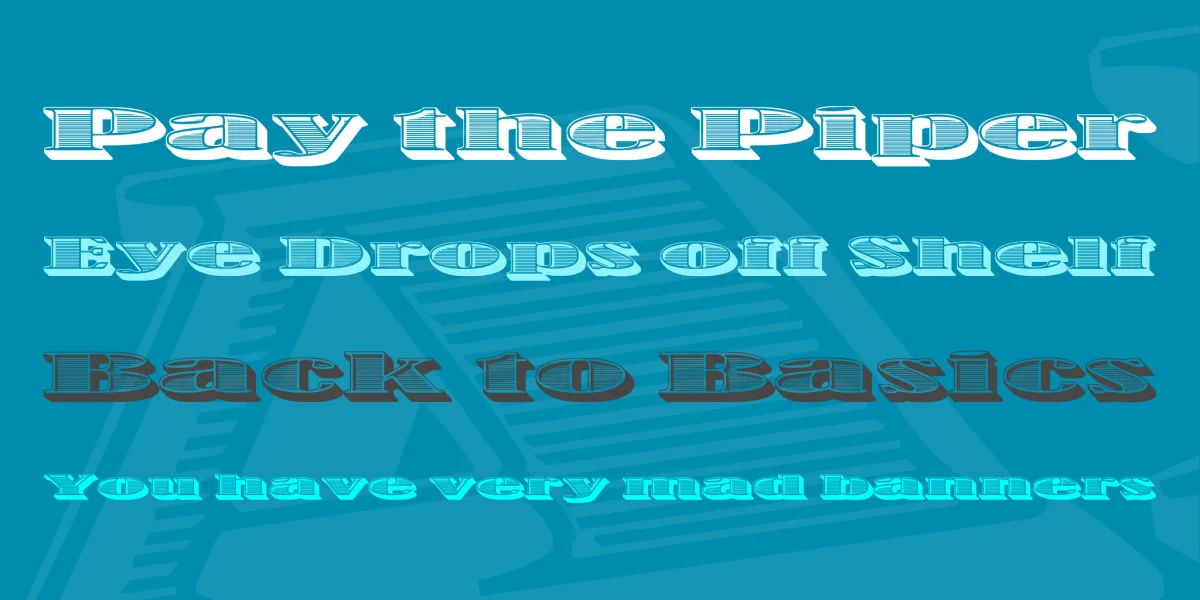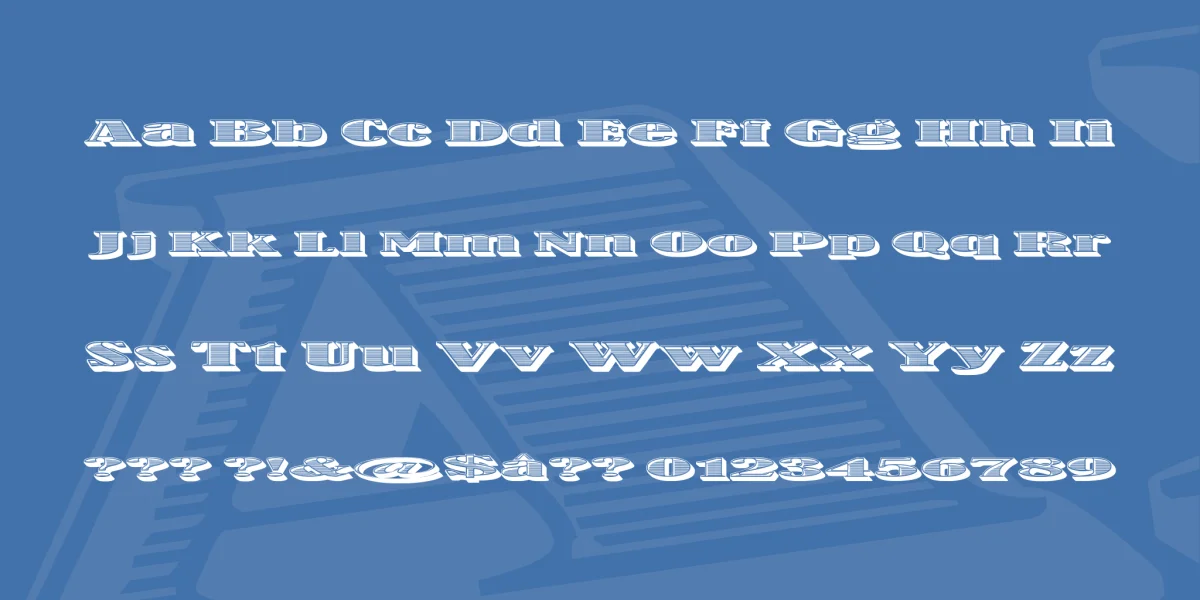
Font inspired by the American bill. My Fonts Are free to use personal and commercial works to. But you can't sell them directly. Please don't make illegal copies of the fonts. Thanks and regards: Koczman Bálint (Cpr.Sparhelt) All kind of donation is accepted.